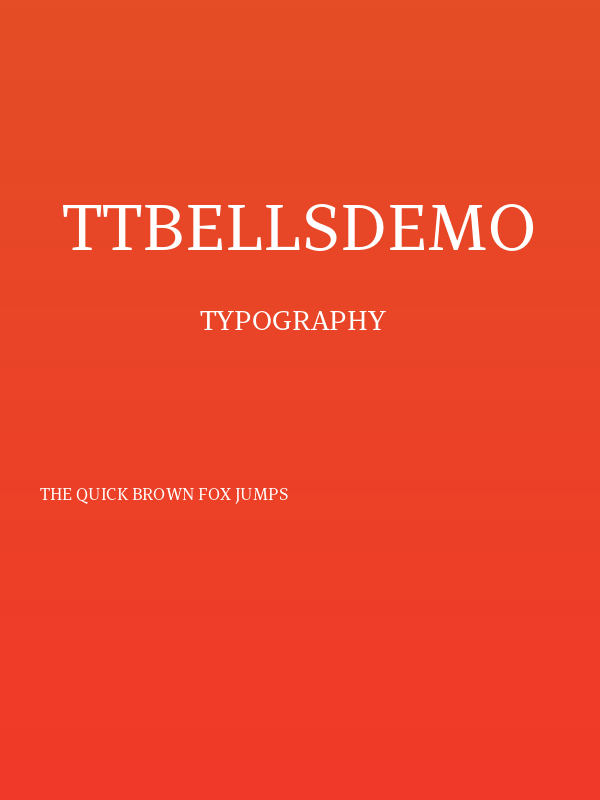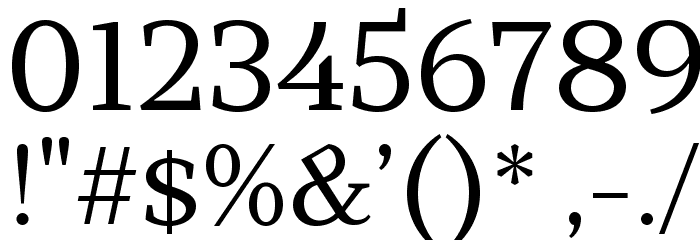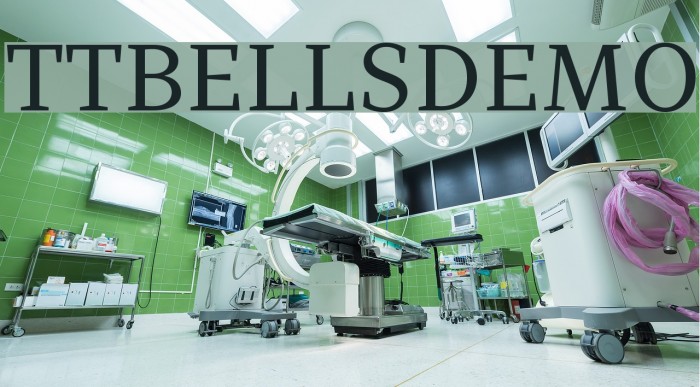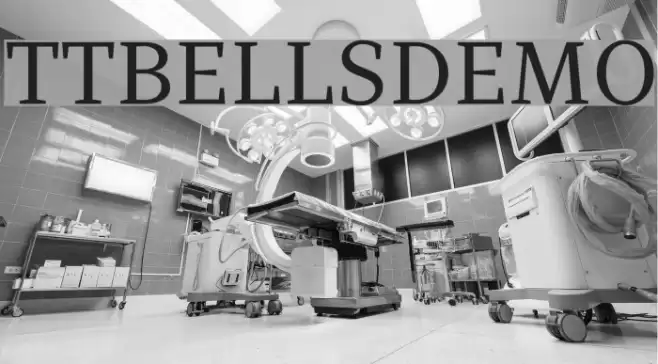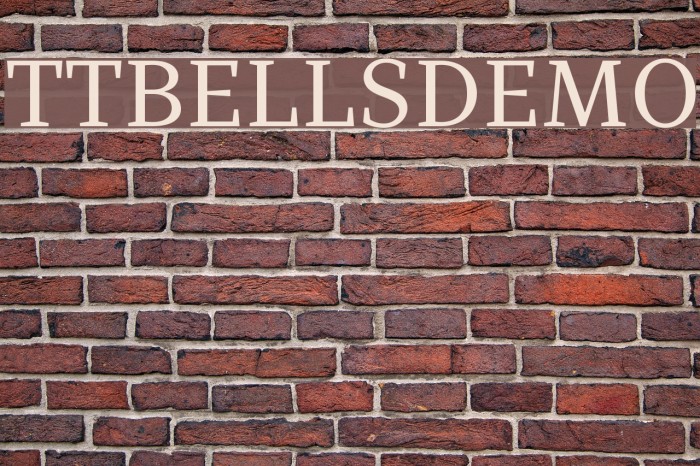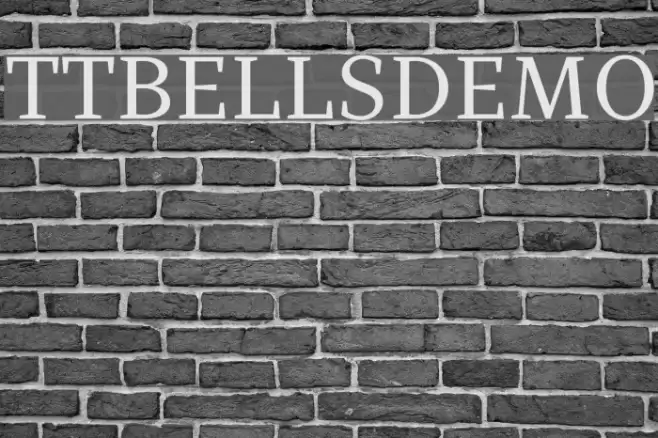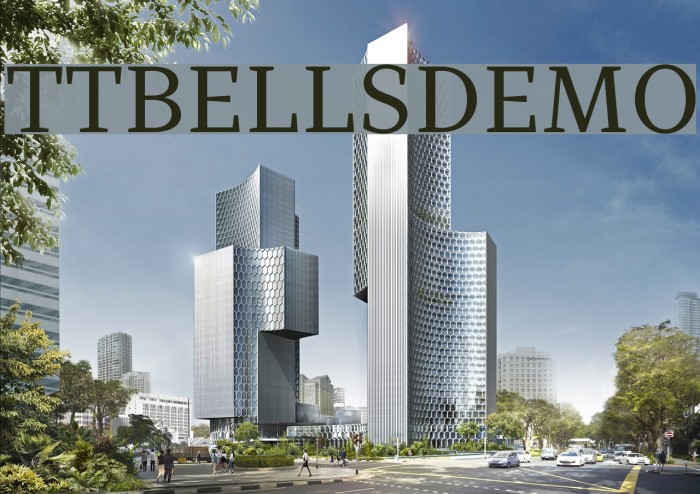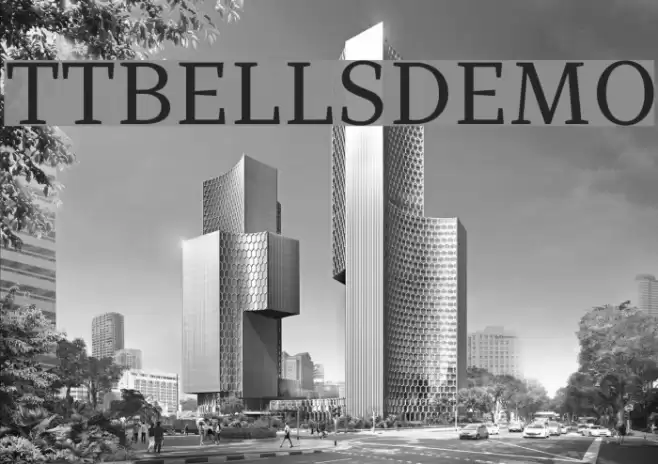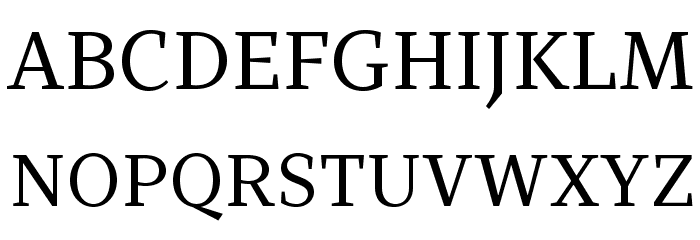
TTBellsDEMO Font
TTBellsDEMO Description
This typeface exudes a classic elegance with its serif design, characterized by sharp, clean lines and a balanced structure. The uppercase letters are bold and commanding, while the lowercase letters maintain a refined and sophisticated appearance. The numerals are distinct and easily readable, complementing the overall aesthetic. Special characters are crafted with precision, enhancing the font's versatility. The consistent stroke width and moderate contrast give it a timeless appeal, making it suitable for a variety of applications.
| Overall Style | Classic |
| Use Case | Headlines, Body text, Logos |
| Proposed Projects | Ideal for editorial design, book covers, formal invitations, and branding projects that require a touch of sophistication. |